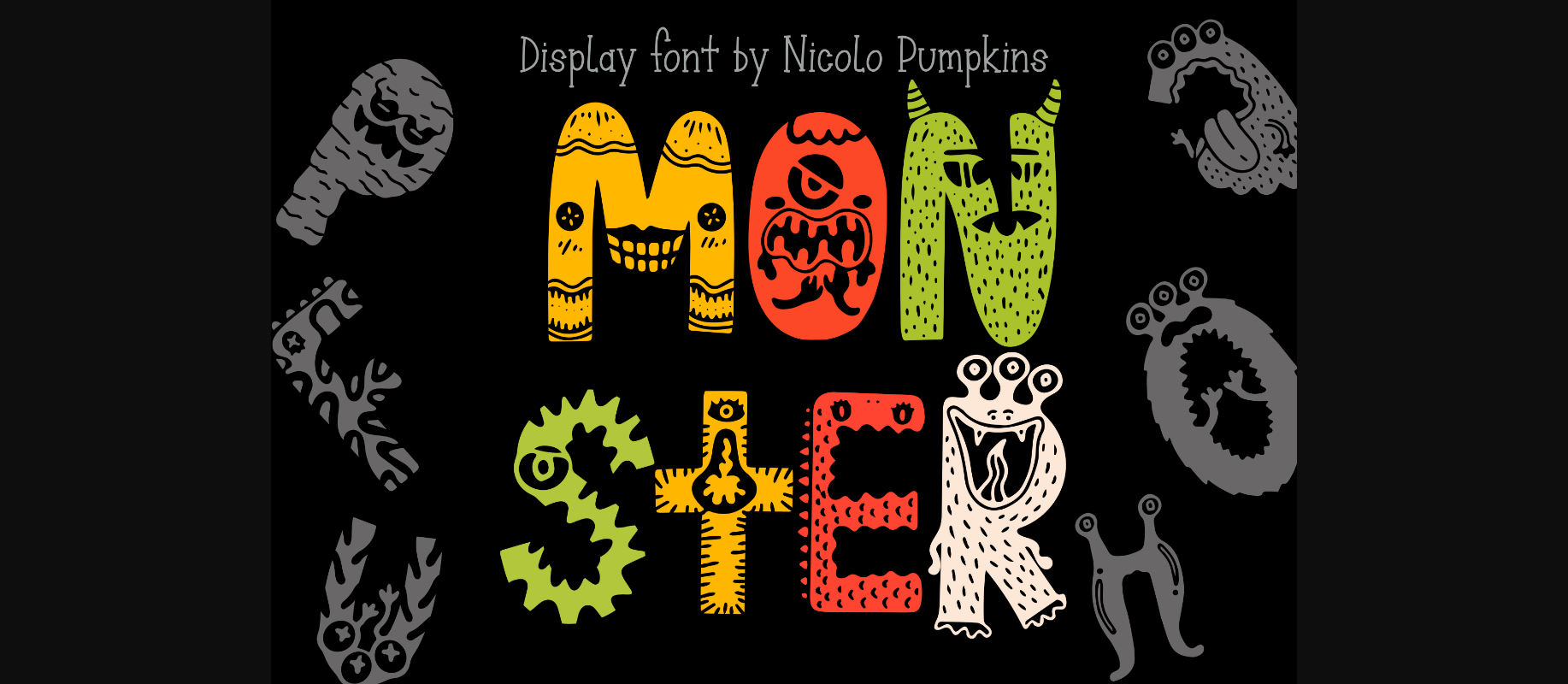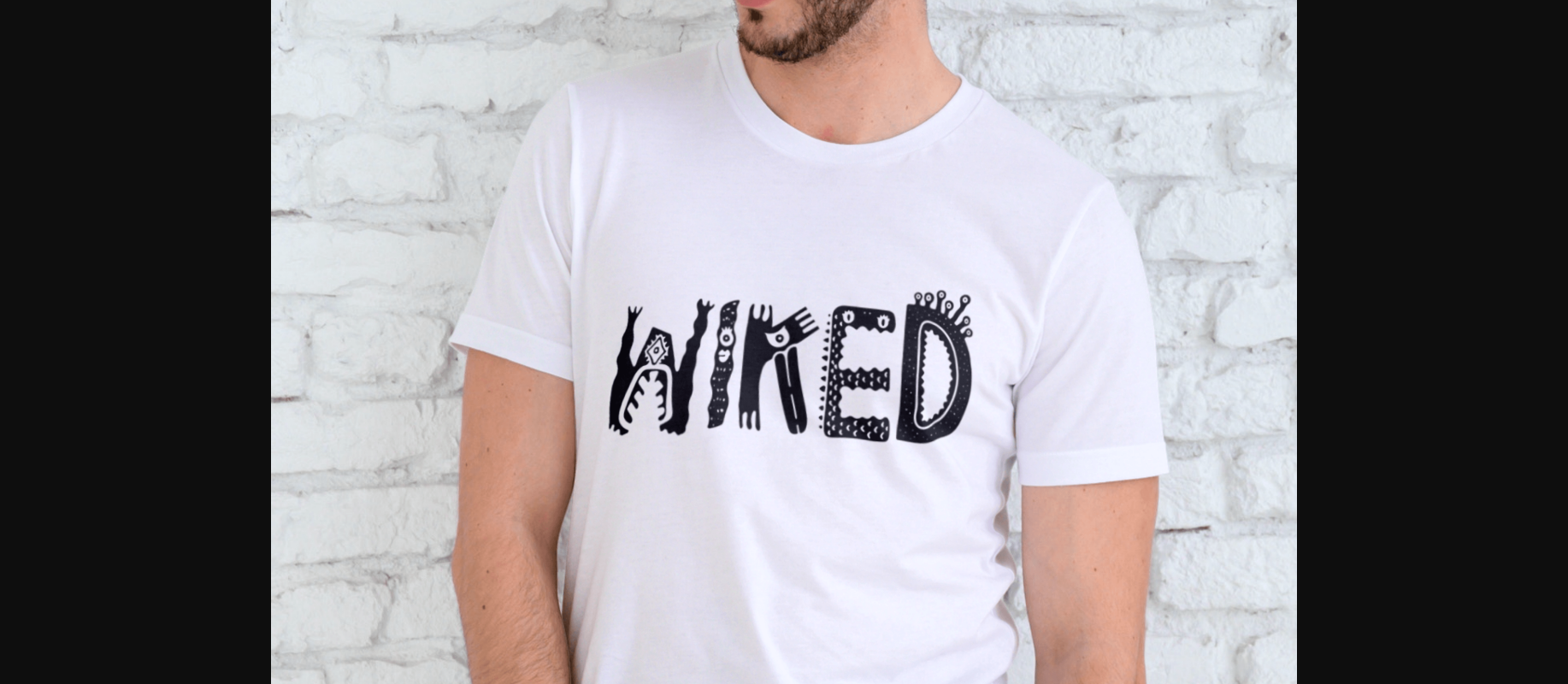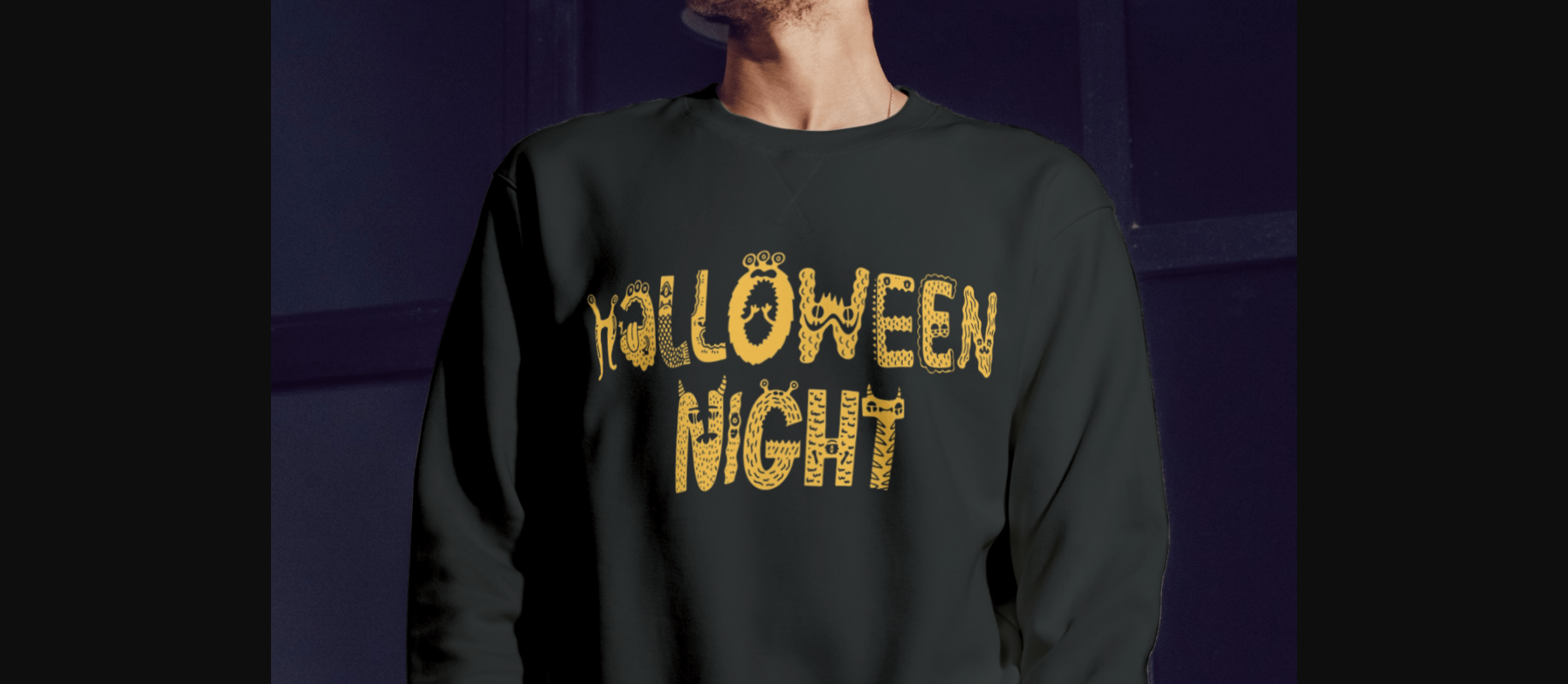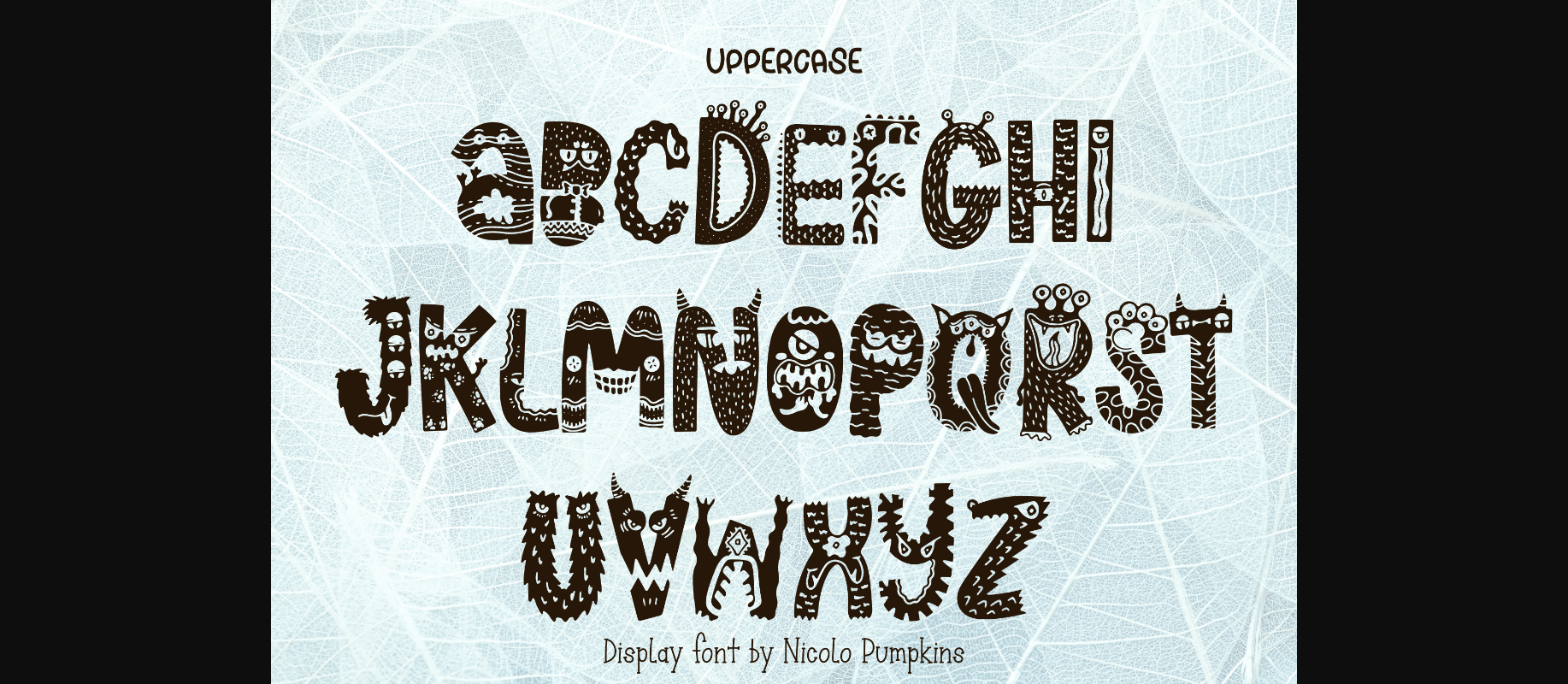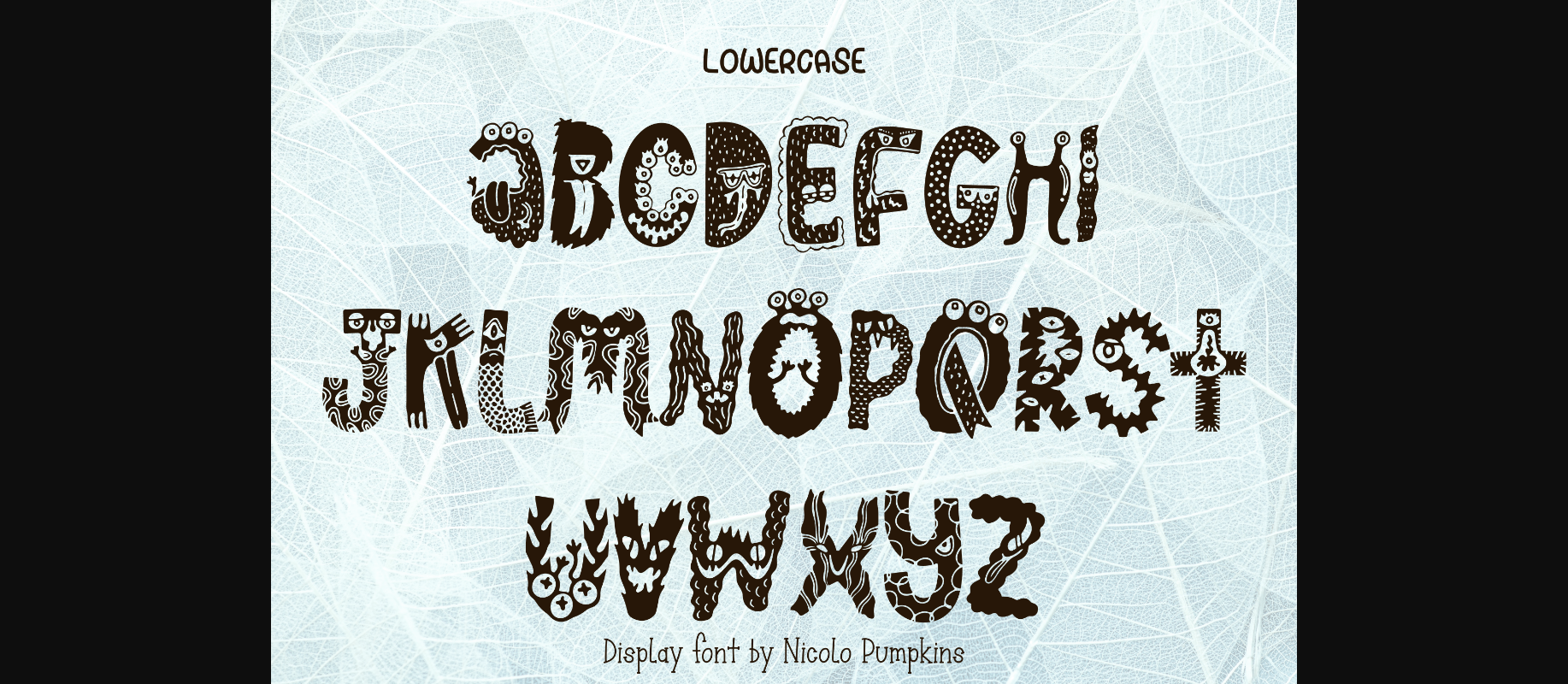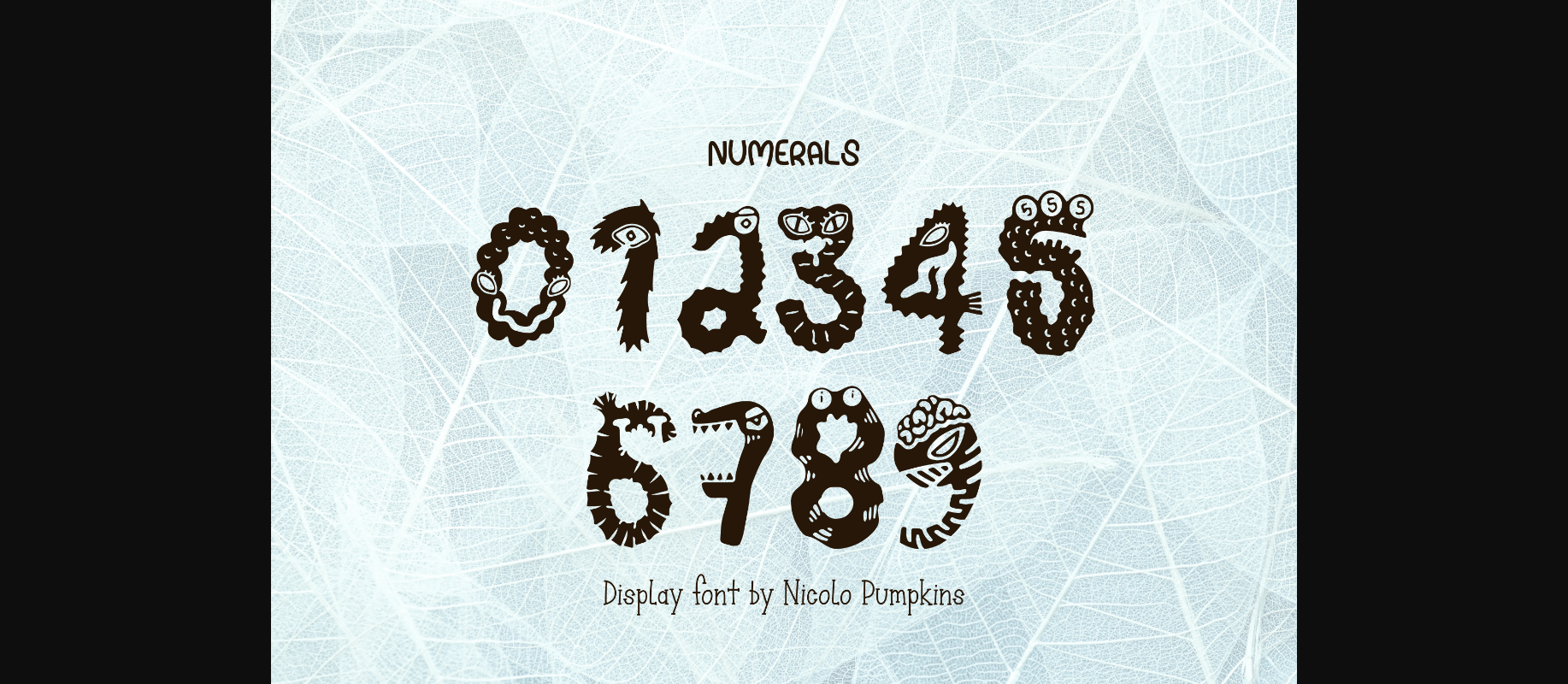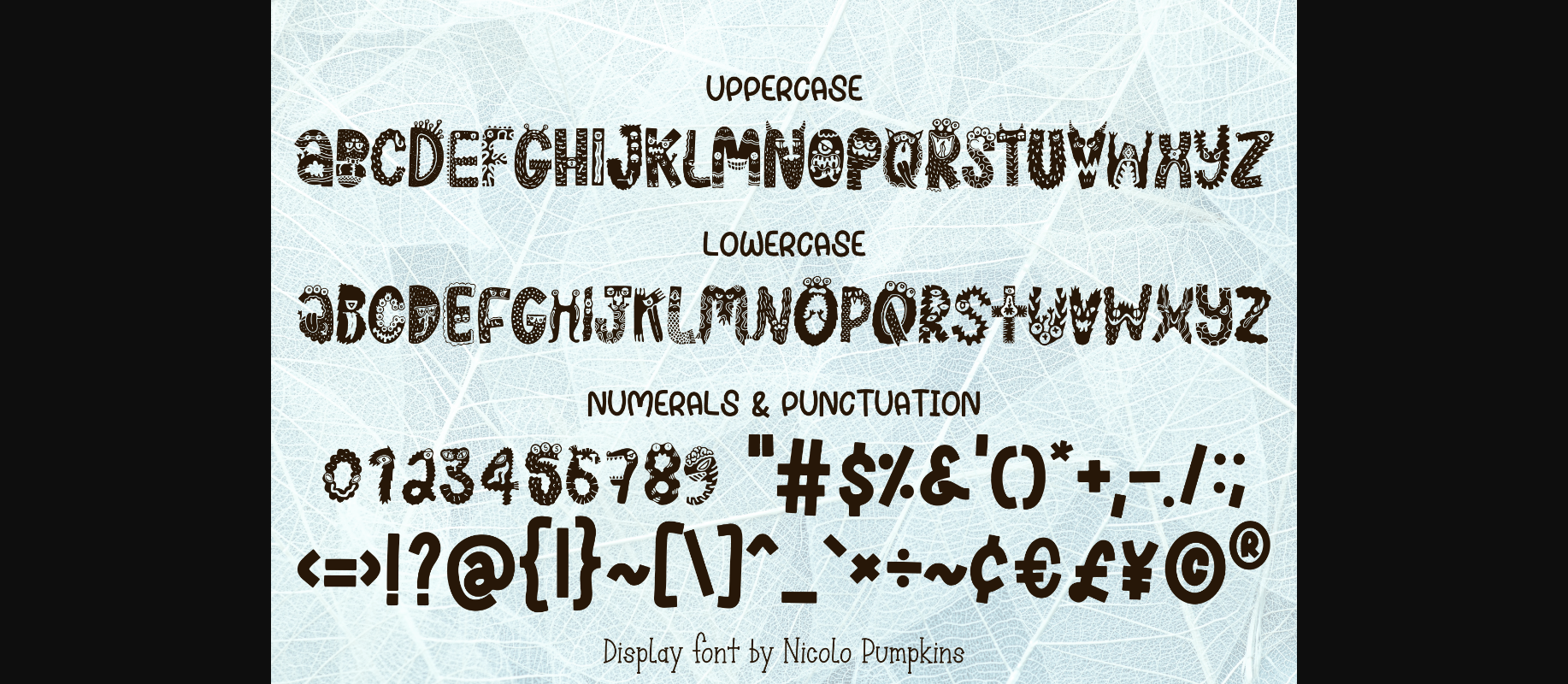
About Monster Font
Monster is a cool, cute, and friendly Halloween monster decorative font perfect for any lettering product like Halloween t-shirts, cards, tote bags, mugs, hats, hoodies, notebooks, and much more!
Monster will make any creative idea stand out!